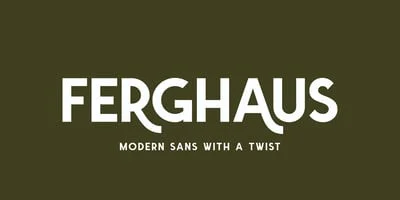
Ferghaus Sans Font
Ferghaus Sans Font is a modern and versatile sans-serif typeface, designed for clarity and impact. Its clean lines and balanced proportions make it an exceptionally functional choice for a vast array of contemporary design projects. Think of it for sleek corporate branding, professional website interfaces, compelling editorial layouts for magazines and online articles, clear and concise mobile app designs, impactful advertising campaigns, and sophisticated packaging. This font excels in environments where readability, modern aesthetics, and a professional tone are paramount. It's particularly effective for designs that need to convey reliability, innovation, and a polished image, making your content easily digestible and visually appealing across all mediums.
What makes Ferghaus Sans Font truly exciting is its remarkable blend of minimalist elegance and robust versatility. It strikes a perfect balance between being distinct enough to stand out, yet neutral enough to be highly legible in various contexts and sizes. The subtle design details in its letterforms give it a unique character without sacrificing its primary function of clear communication. It projects an air of understated confidence and contemporary sophistication, making your message feel authoritative and current. This font isn't just about displaying text; it's about building trust and enhancing the user experience through thoughtful, clean typography. Ferghaus Sans Font empowers designers to create cohesive and modern visual identities that resonate with a broad audience.
The Ferghaus Sans Font family is typically comprehensive, offering a wide spectrum of weights and styles to provide maximum design flexibility. You'll often find it includes a full range from ultra-light to black, along with corresponding italic styles, allowing for precise typographic hierarchy and emphasis within your designs. Some extended versions might even feature condensed or expanded widths, further broadening its application possibilities. This extensive family ensures that Ferghaus Sans Font can adapt seamlessly to any design challenge, from subtle body text to commanding headlines, all while maintaining a consistent and harmonious visual language. Its robust character set usually covers a broad range of Latin characters, numbers, and extensive punctuation, making it suitable for international use and complex typographic systems.